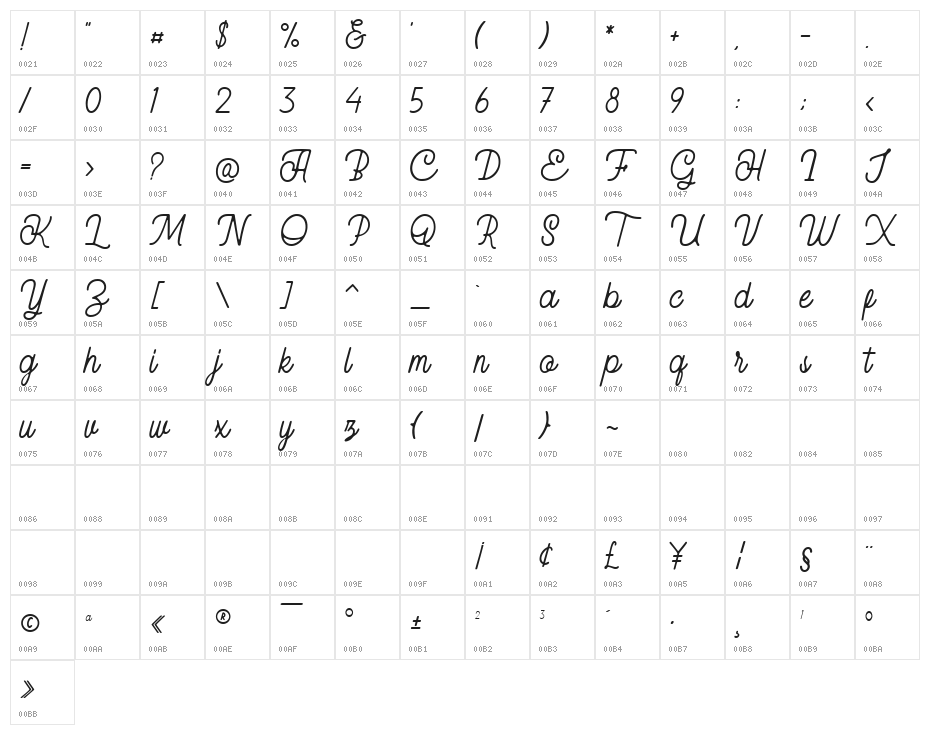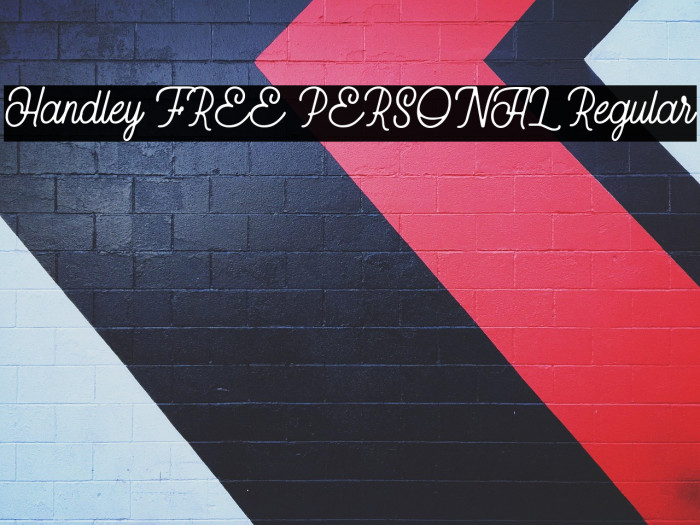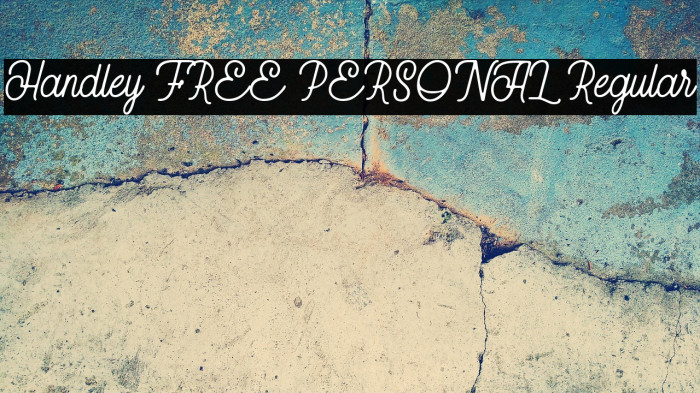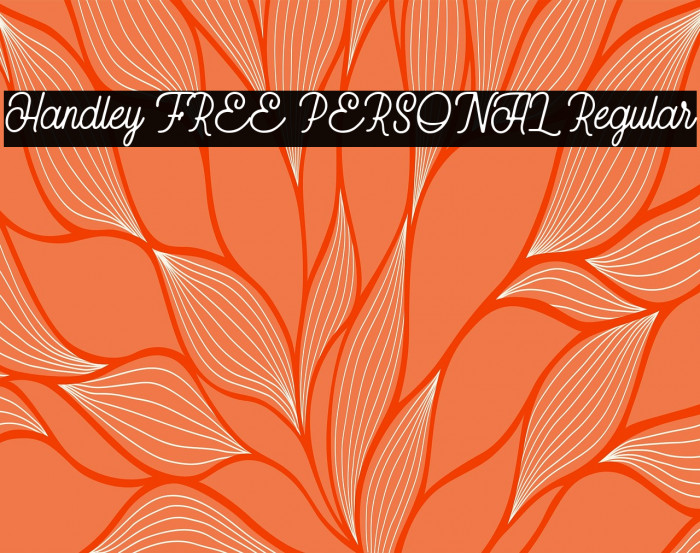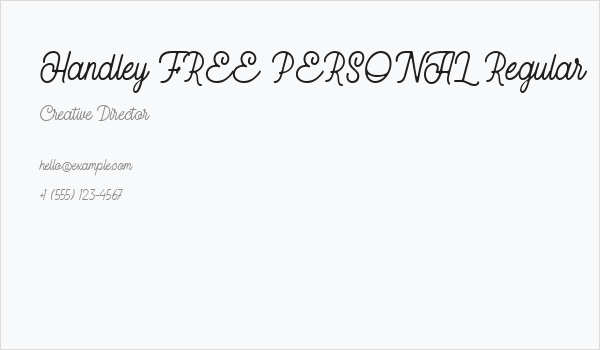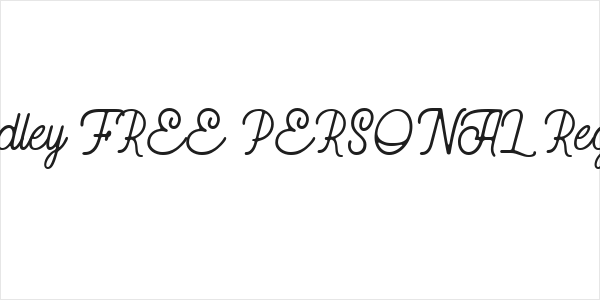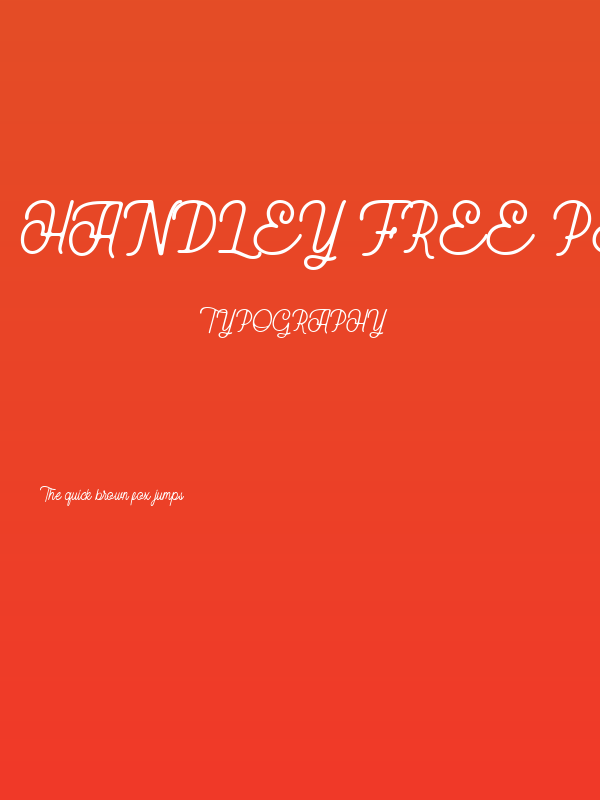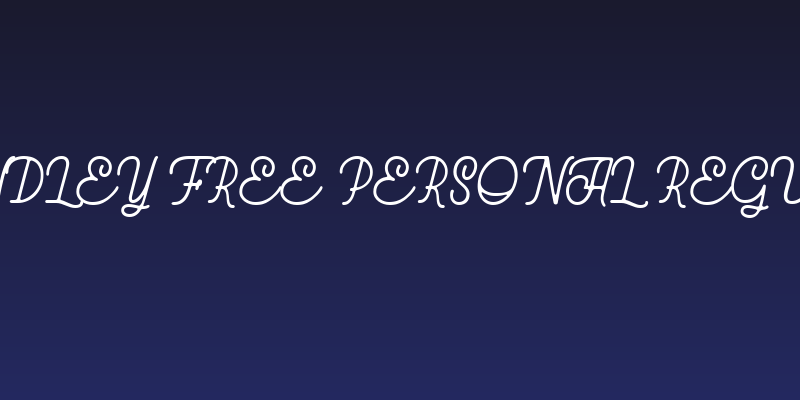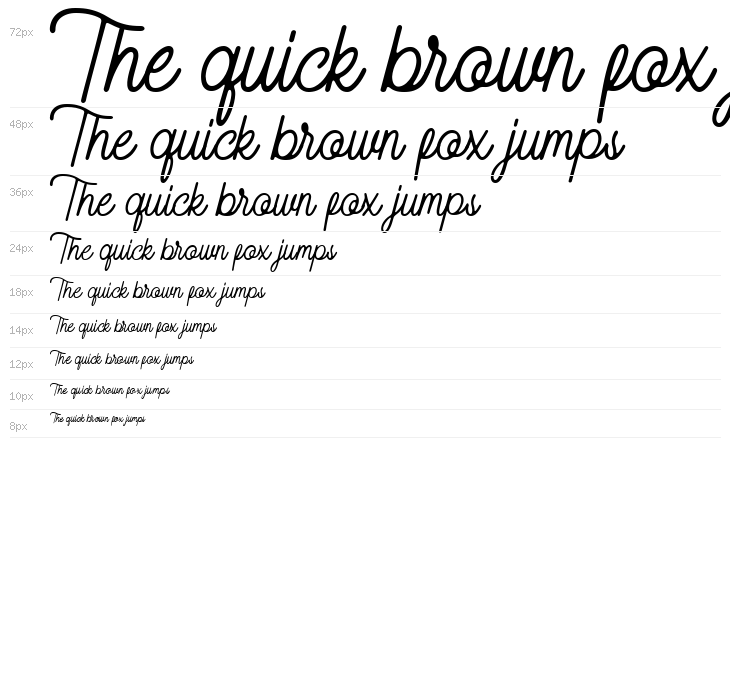
Handley FREE PERSONAL Regular Font
Handley FREE PERSONAL Regular Description
This font features a flowing, cursive style that exudes elegance and sophistication. The characters are interconnected, creating a seamless and fluid appearance. The uppercase letters are slightly more ornate, with subtle flourishes that add a touch of flair. The lowercase letters maintain a consistent rhythm, enhancing readability while preserving the script's artistic nature. Numbers and special characters are designed to match the overall aesthetic, ensuring a cohesive look across all text elements. This font is ideal for projects that require a personal, handwritten touch, such as invitations, greeting cards, and branding materials.
| Use Case | Invitations, Greeting cards, Branding |
| Proposed Projects | Ideal for wedding invitations, greeting cards, personal branding, and elegant signage. |